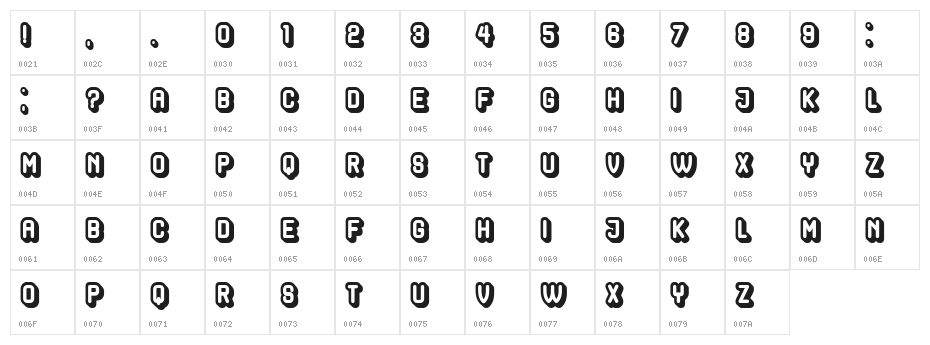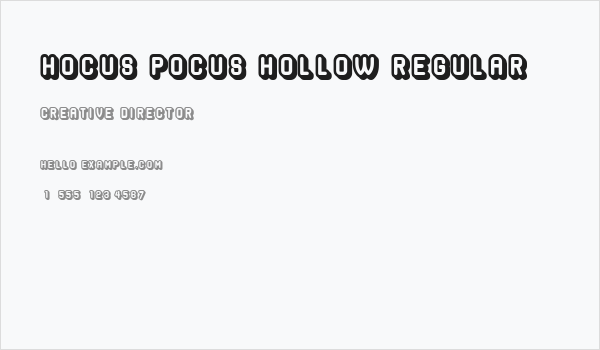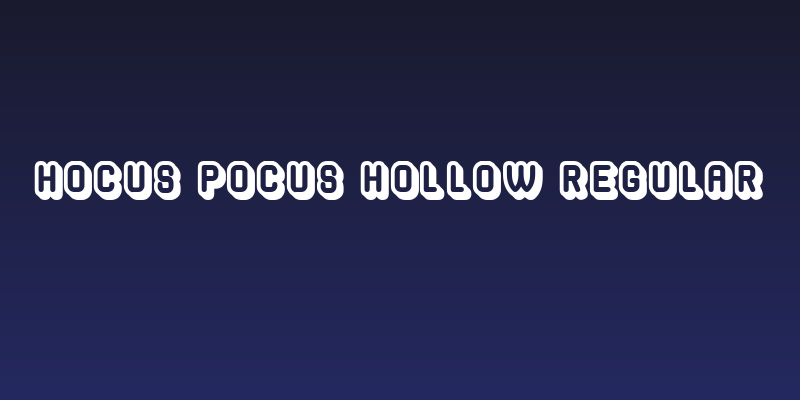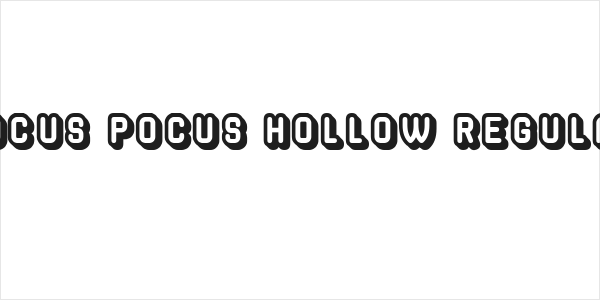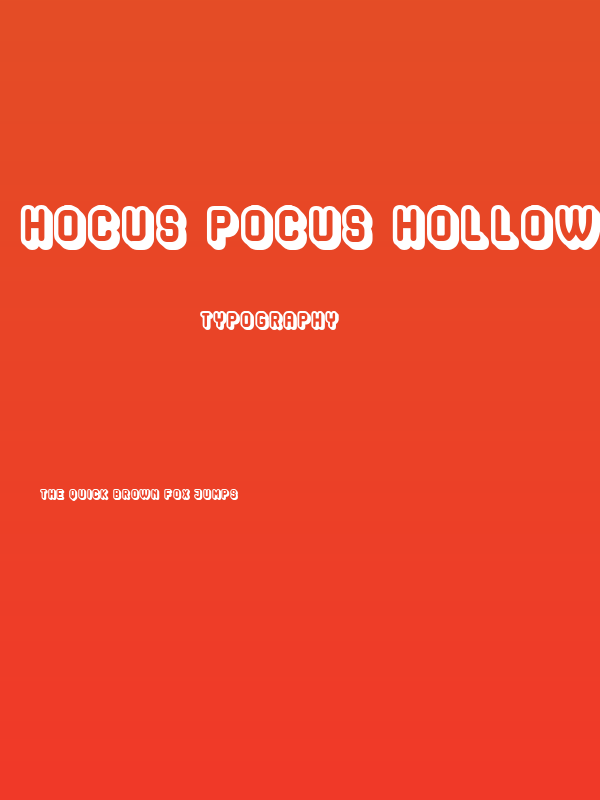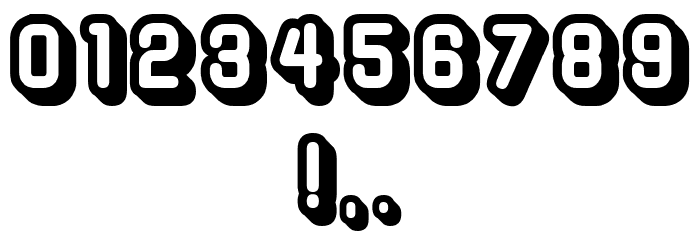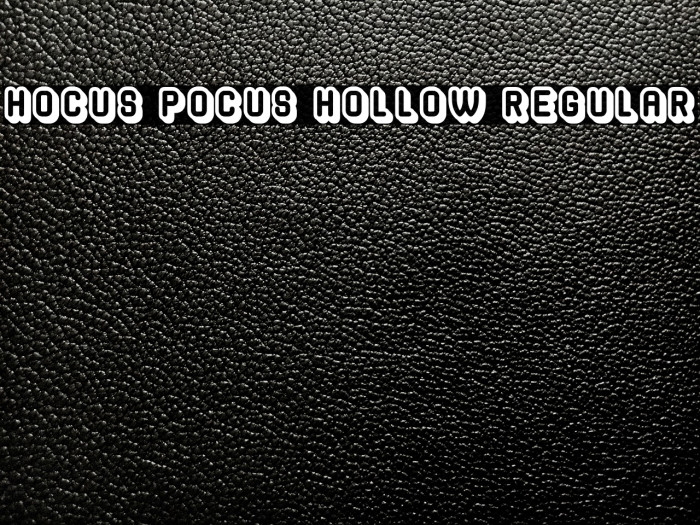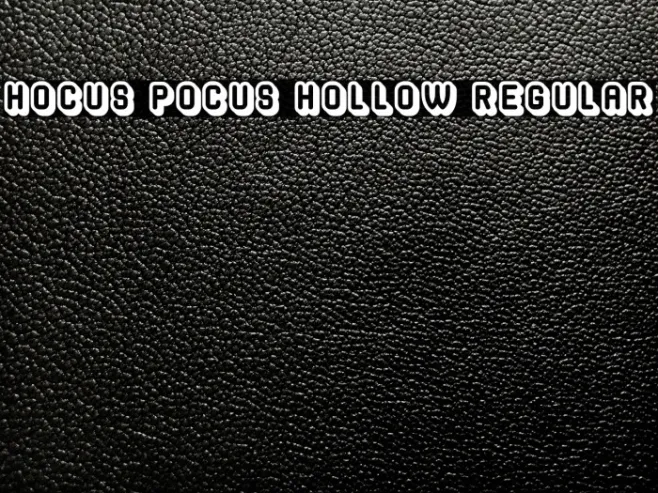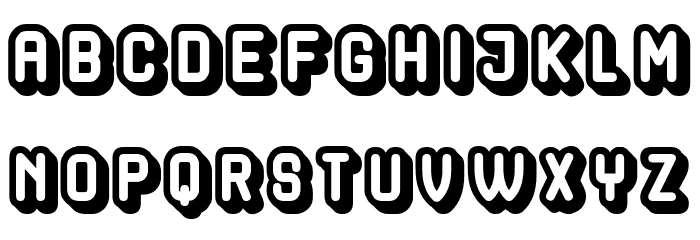
Hocus Pocus Hollow Regular Font
Hocus Pocus Hollow Regular Description
This font features a playful and bold hollow design, characterized by thick outlines and a consistent stroke width that creates a striking visual impact. The uppercase and lowercase letters maintain a uniform style, with rounded edges that add a friendly and approachable feel. The numerals and special characters are designed to match the overall aesthetic, ensuring cohesion across all elements. The hollow nature of the font makes it ideal for projects that require a standout appearance, such as posters, headlines, and creative branding. Its unique style captures attention while maintaining readability.
| Overall Style | Playful, Modern |
| Use Case | Headlines, Posters, Creative Branding |
| Proposed Projects | Ideal for posters, headlines, creative branding, and any project needing a standout appearance. |